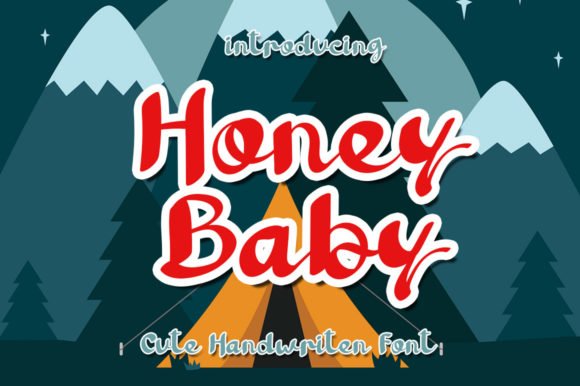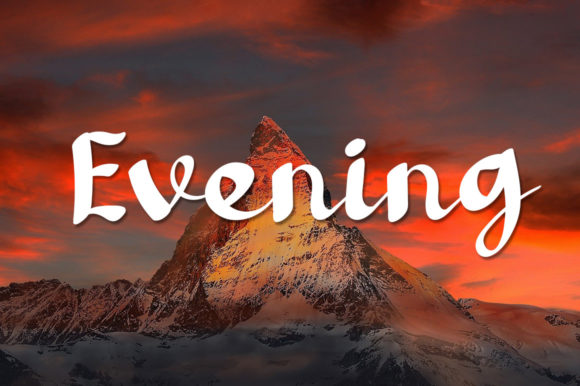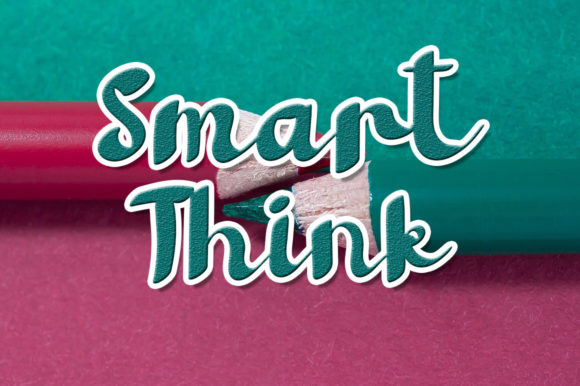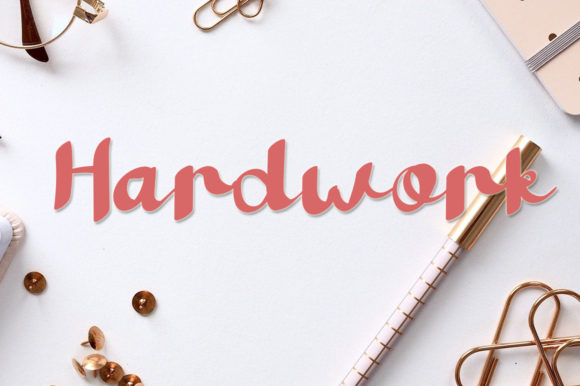
Get Ready to Fall in Love with the Honey Baby Font
Do you remember that moment when you finally found the perfect font to match your creative vision? The moment when everything clicks, and your design comes alive? It’s a feeling that’s hard to describe, but it’s a mix of excitement, satisfaction, and a sense of accomplishment. If you’re a designer, you know exactly what I’m talking about.
That’s why we’re excited to introduce you to the Honey Baby Font, a stunning handwritten font that combines the elegance of cursive with the modernity of a sophisticated design. With its unique style, the Honey Baby Font is perfect for designers who want to add a touch of personality to their projects. Whether you’re working on a branding project, a social media campaign, or a blog post, this font is sure to make your design stand out.
Honey Baby Font Key Features
- Font Family: Honey Baby
- Unique Characteristics: The font features a playful, cursive script with rounded edges and soft lines, making it suitable for creative and artistic projects
Honey Baby Font Review
I recently had the chance to work with the Honey Baby Font, and I must say it’s an interesting addition to any design project. ✨ One of the things I appreciate about this font is its unique aesthetic – it’s a perfect blend of vintage and modern styles that can easily add a touch of elegance to any design. The font’s cursive nature also makes it perfect for titles, headings, and other emphasis elements.
Another plus is the font’s versatility – it comes in a range of weights, from light to bold, making it suitable for various design applications. Additionally, the font is highly customizable, allowing designers to adjust the size, spacing, and color to their liking.
- ⚠️ The font may not be the best choice for body text, as it can be quite difficult to read in smaller sizes.
- ⚠️ The font’s cursive nature can sometimes make it look inconsistent, especially when paired with other fonts.
- ⚠️ The font’s unique aesthetic may not be to everyone’s taste, and some designers may find it too over-the-top.
Overall, I think the Honey Baby Font is a great addition to any designer’s toolkit. While it may have some limitations, its unique aesthetic and versatility make it a great choice for designers looking to add a touch of elegance to their projects.
Honey Baby Font: A Practical Application Guide
The Honey Baby Font is ideal for creating feminine and playful designs. It’s perfect for:
– Baby shower and nursery decorations
– Food and beverage branding
– Fashion and beauty advertising
Getting the Most Out of the Honey Baby Font
To get the most out of the Honey Baby Font, experiment with different font sizes, colors, and styles. Combine it with other fonts to create a unique and eye-catching design. Use it for headings, subheadings, and body text to add visual interest and personality to your designs.
Alternatives to Honey Baby Font
Great Vibes is a beautiful, handwritten script font that is perfect for creating a warm and inviting atmosphere. It has a relaxed, casual feel that makes it ideal for use in branding, packaging, and advertising. Great Vibes has a similar cursive feel to Honey Baby Font, but with a more laid-back and carefree vibe.
Alex Brush is a elegant, handwritten script font that is perfect for use in high-end branding, invitations, and other special occasions. It has a sophisticated, refined feel that makes it ideal for use in situations where a more formal tone is required. Alex Brush has a similar level of elegance to Honey Baby Font, but with a more polished and refined look.
Pacifico is a beautiful, handwritten script font that is perfect for creating a relaxed and beachy vibe. It has a casual, laid-back feel that makes it ideal for use in branding, packaging, and advertising. Pacifico has a similar cursive feel to Honey Baby Font, but with a more laid-back and carefree vibe.
Q: Can I customize Honey Baby Font to fit my specific design needs?